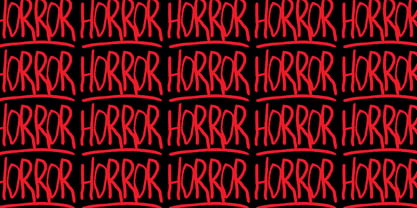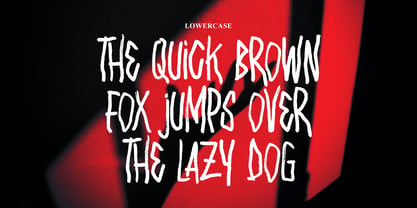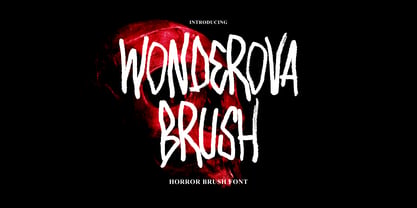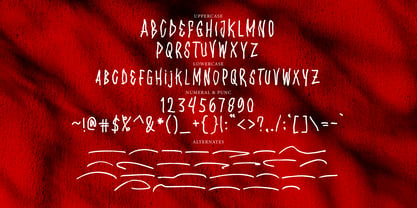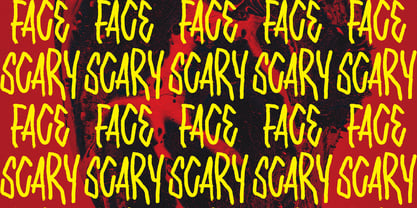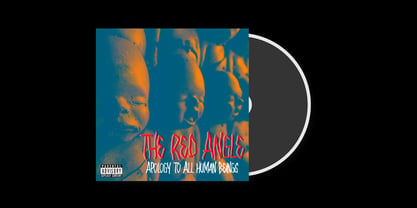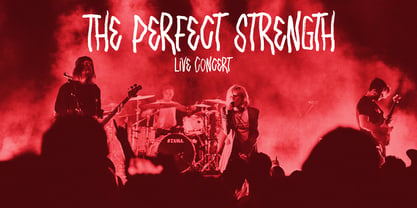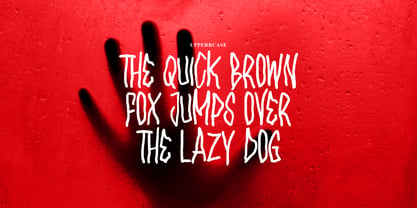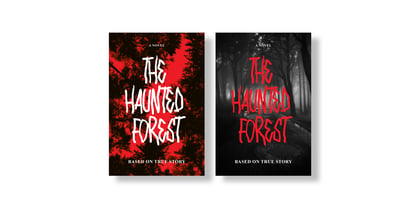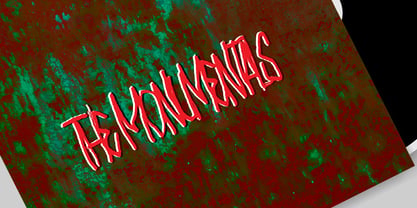
Wonderova Brush
von Tebaltipis Studio
Die Schriftfamilie Wonderova Brush wurde von Dzulka Elfira entworfen und von Tebaltipis Studio veröffentlicht. Wonderova Brush enthält 1 Stile.
Just like its name, Wonderova Brush creates terror in everything it is written. The rough and jagged brush texture, emphasize the scream of the scared audiences.
Suit perfectly for Spooky and Scary Halloween games, poster, movie title, fast food menu, magazine, youtube covers, youtube thumbnails, social media page covers and so on...
Designer: Dzulka Elfira
Herausgeber: Tebaltipis Studio
Foundry: Tebaltipis Studio
Eigentümer des Designs: Tebaltipis Studio